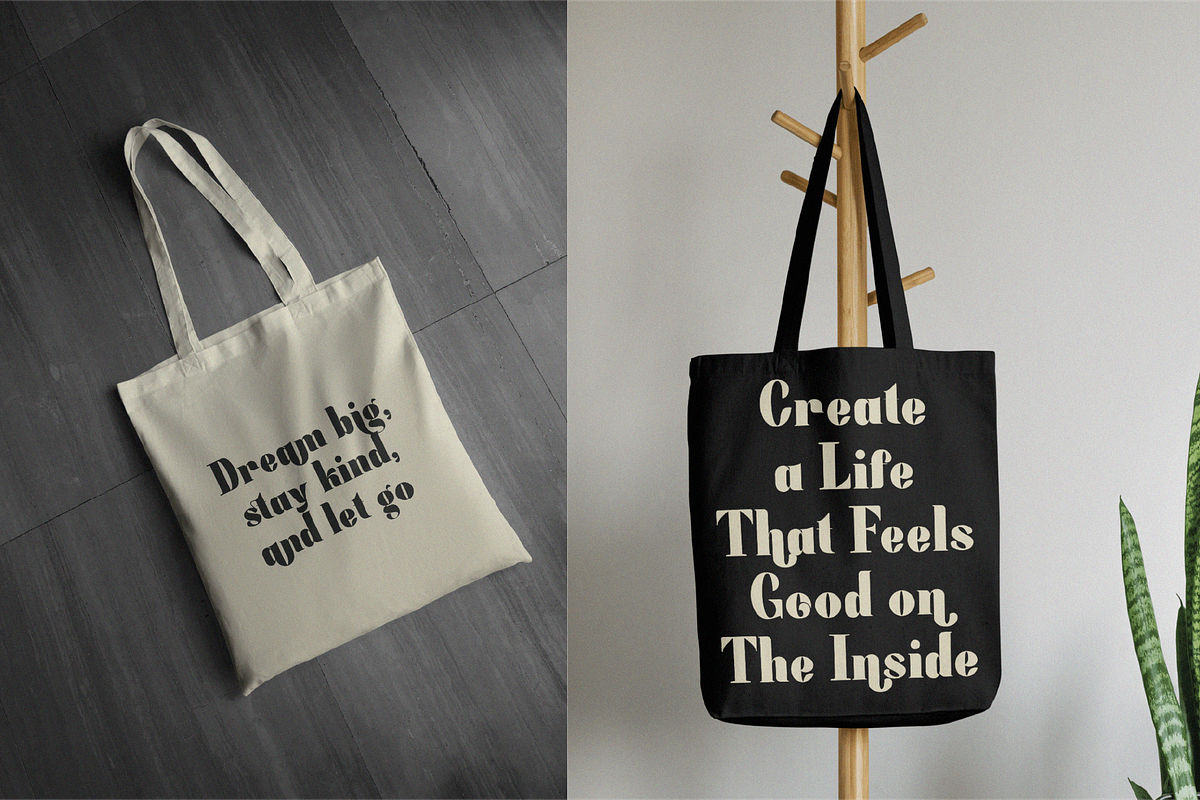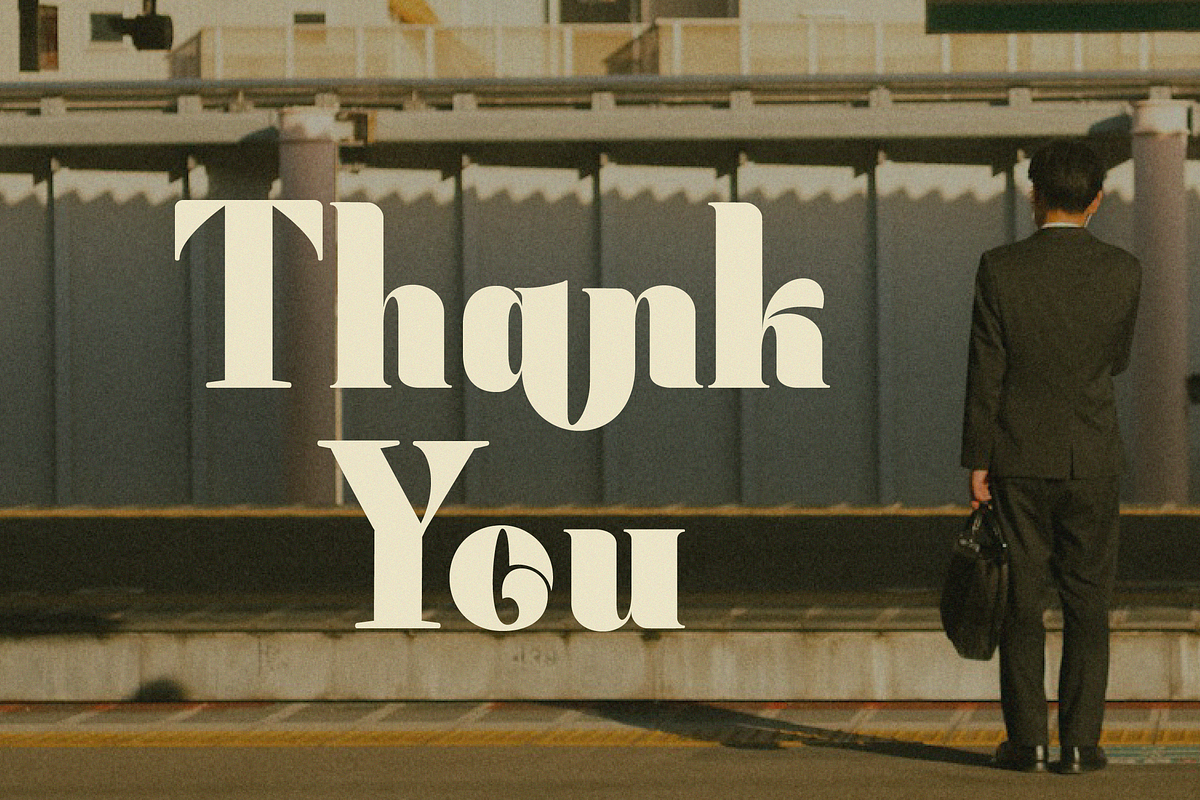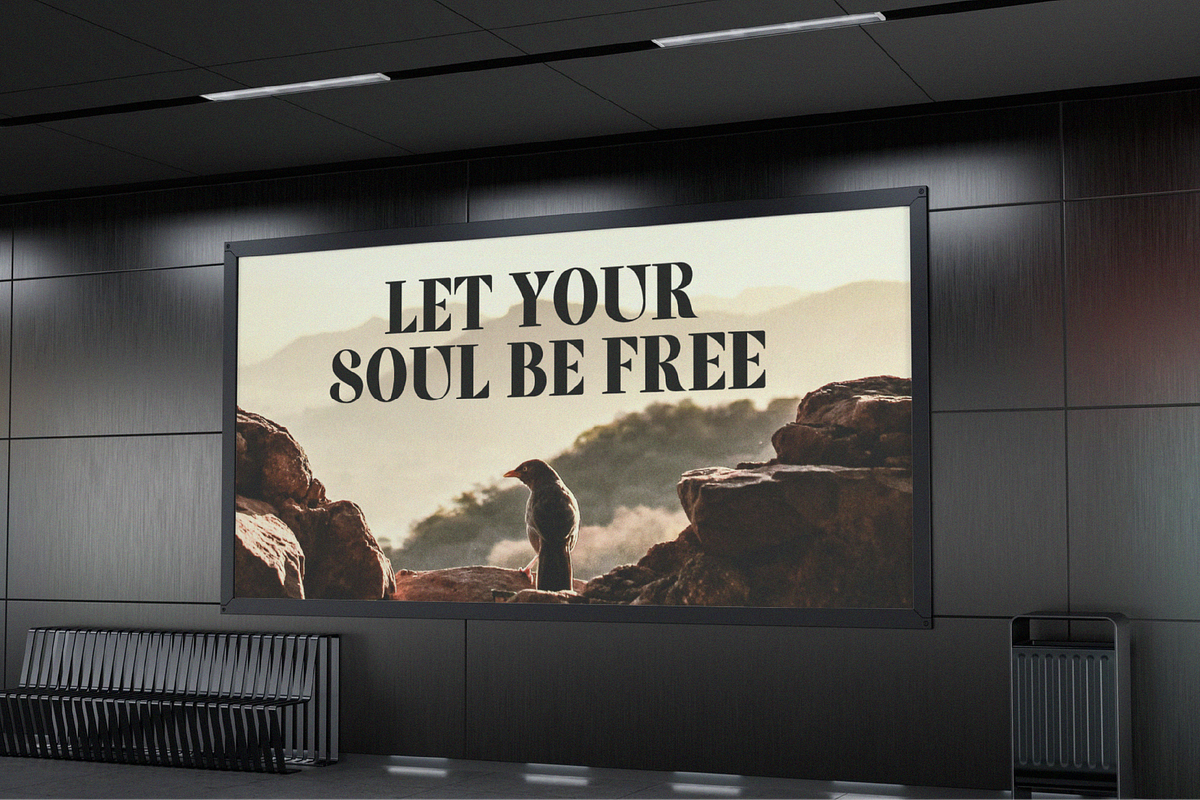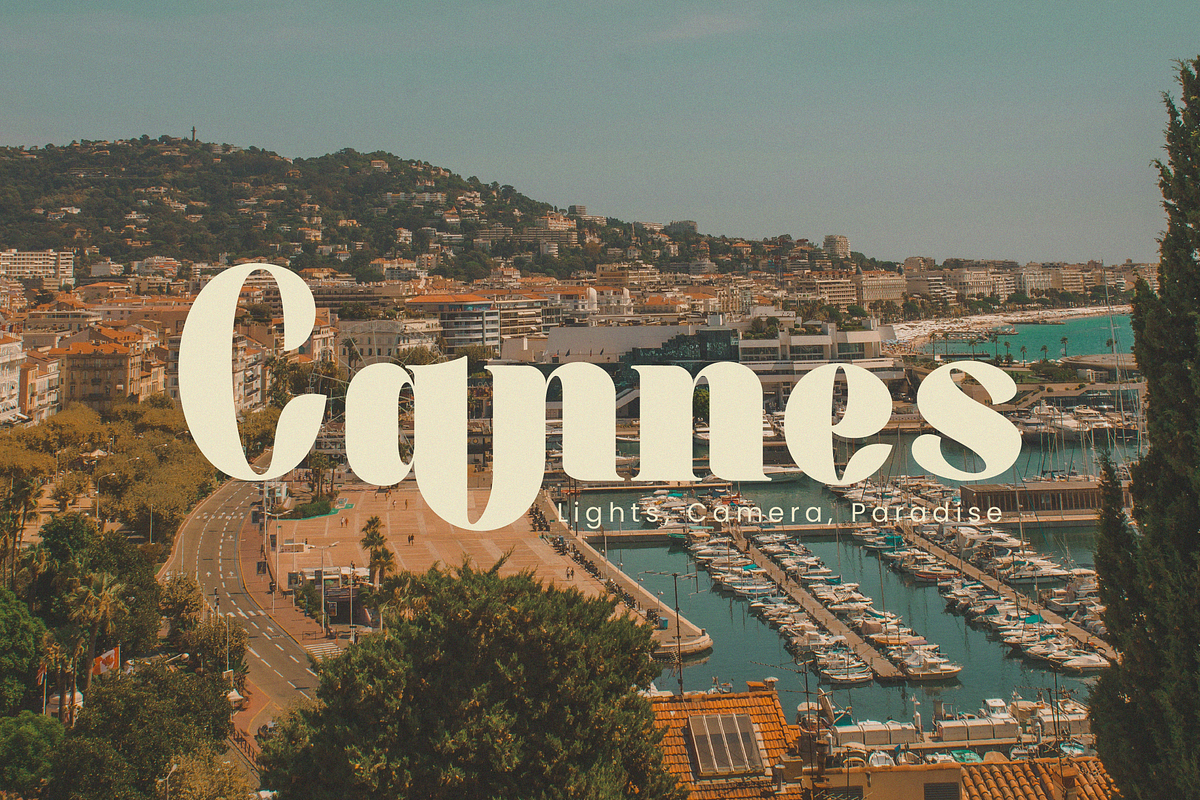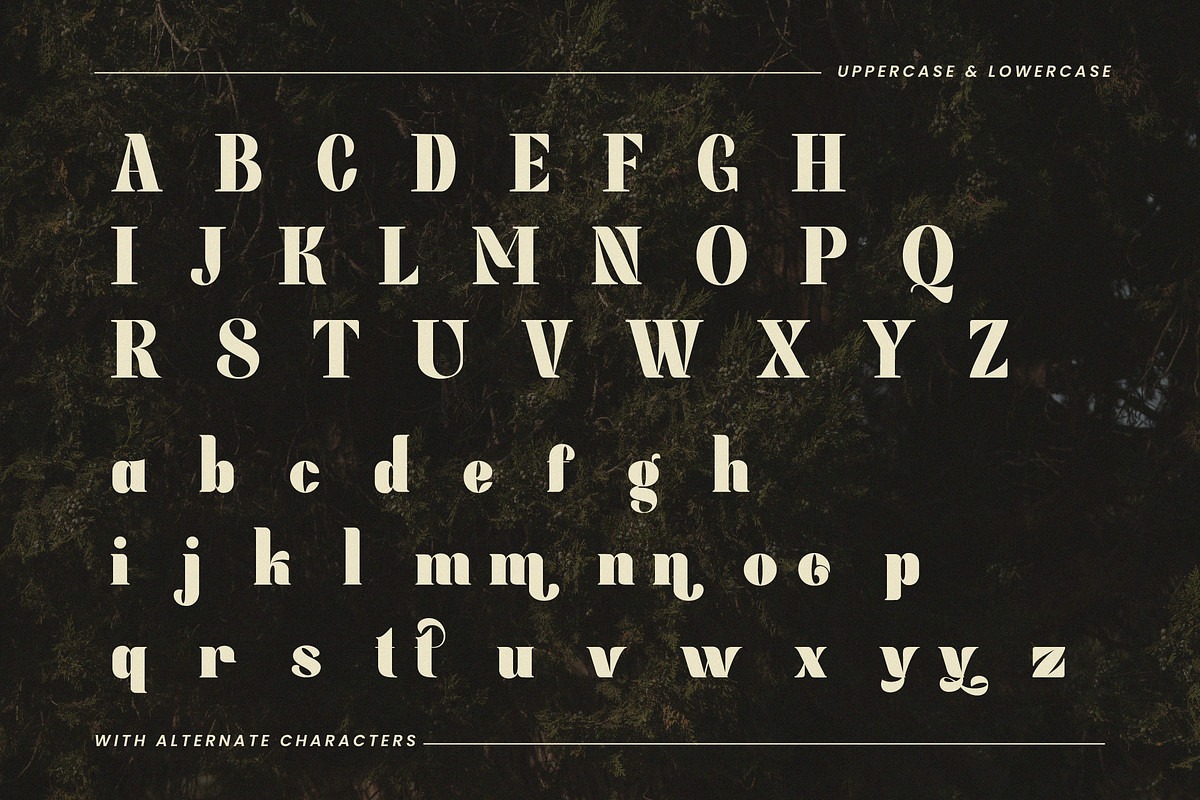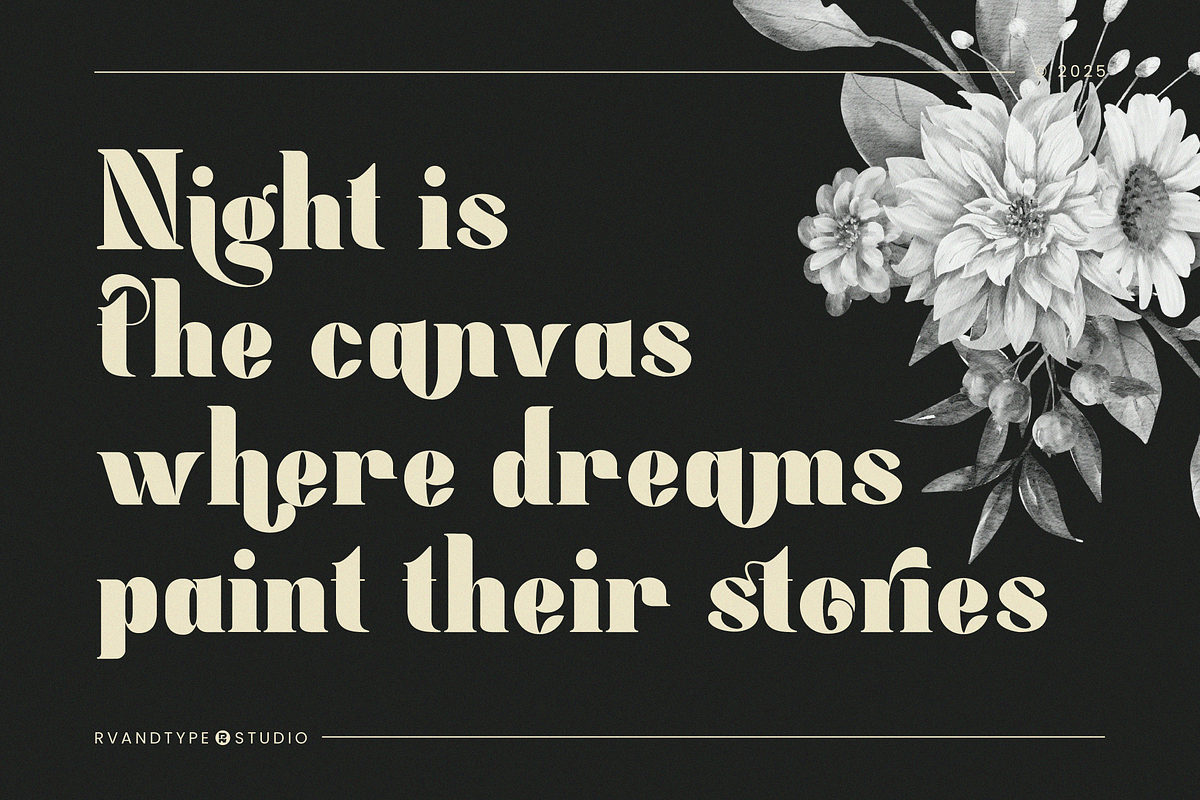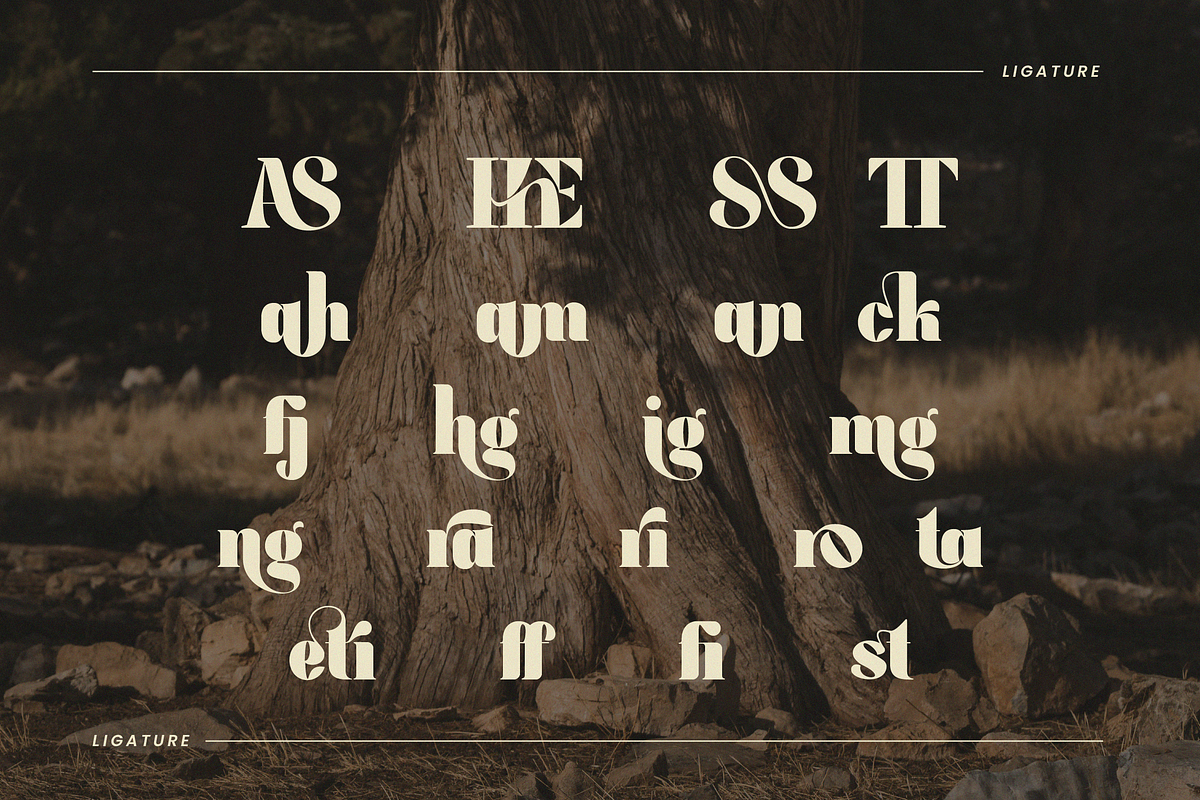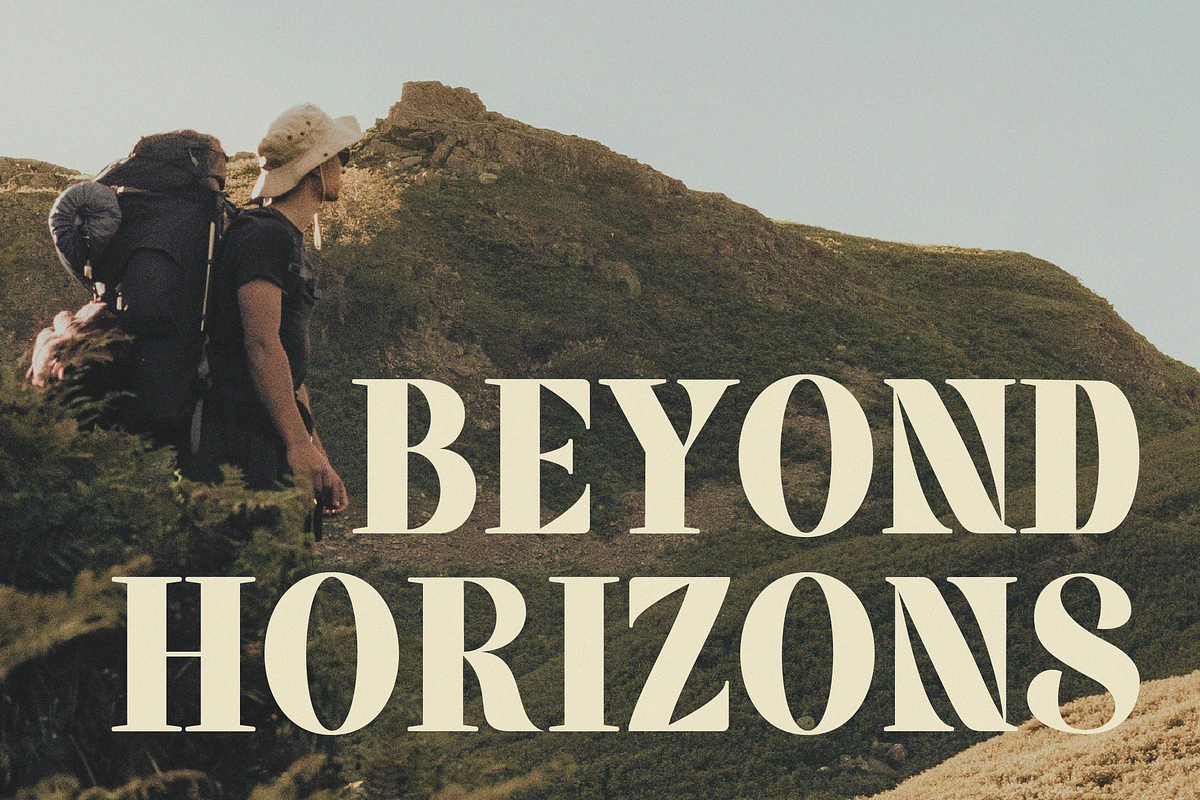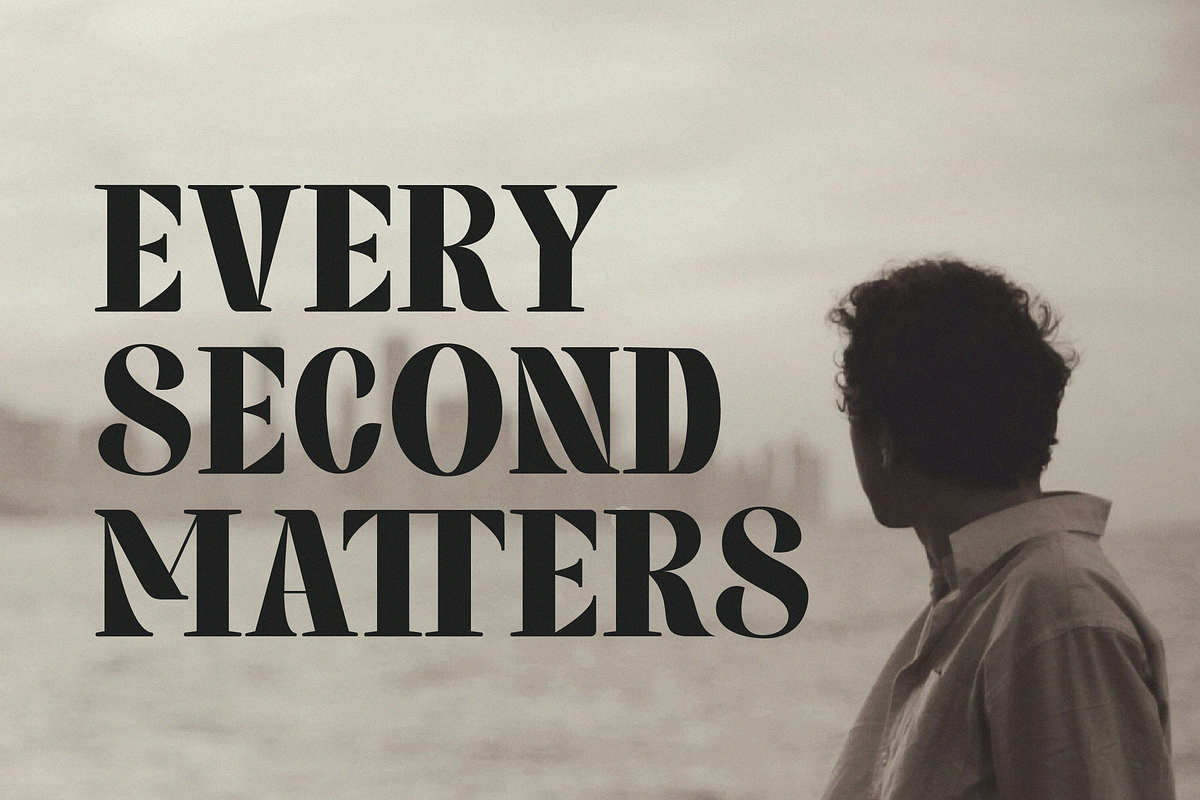
Lasthen - Serif Font
Imagine a typeface that carries the charm of the past while embracing the boldness of the present. Lasthen is more than just a serif display font—it’s a statement of elegance and character. With its striking letterforms, bold strokes, and exquisite ligatures, Lasthen evokes the beauty of vintage typography, infused with a modern sensibility.
Picture it gracing the cover of a high-fashion magazine, adorning a luxury brand’s identity, or making a statement on an eye-catching poster. Every curve and detail is crafted to bring sophistication and uniqueness to your design. Whether you’re crafting a timeless editorial, an elegant branding project, or an artistic masterpiece, Lasthen ensures your words don’t just speak—they captivate.
Why Choose Lasthen?
- Unique & Distinctive Design – A classic aesthetic with a strong modern touch.
- Standout Ligatures – Adds an exclusive and premium aesthetic to your text.
- Complete Features for Maximum Versatility:
- Perfect for Various Projects – Ideal for branding, packaging, poster design, editorials, and other - creative applications.